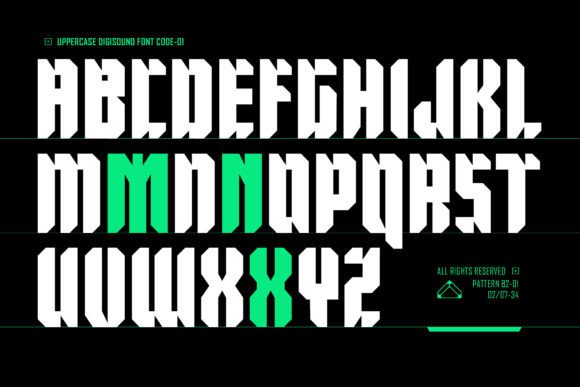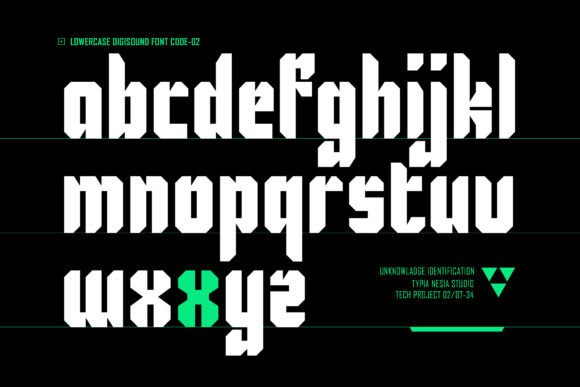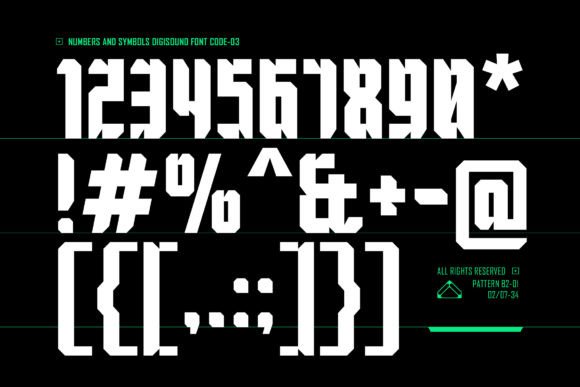
Digisound Font
Digisound is a modern bold condensed Sci-Fi futuristic font that embodies the essence of the digital age. With its sharp lines, condensed structure, and bold appearance, Digisound brings a futuristic aesthetic to your designs. It’s perfect for creating a high-tech, cutting-edge vibe, such as branding sci-fi-themed projects, tech branding, futuristic posters, video game titles, movie posters, logo design, digital interfaces, and any design where a modern, tech-forward look is essential.